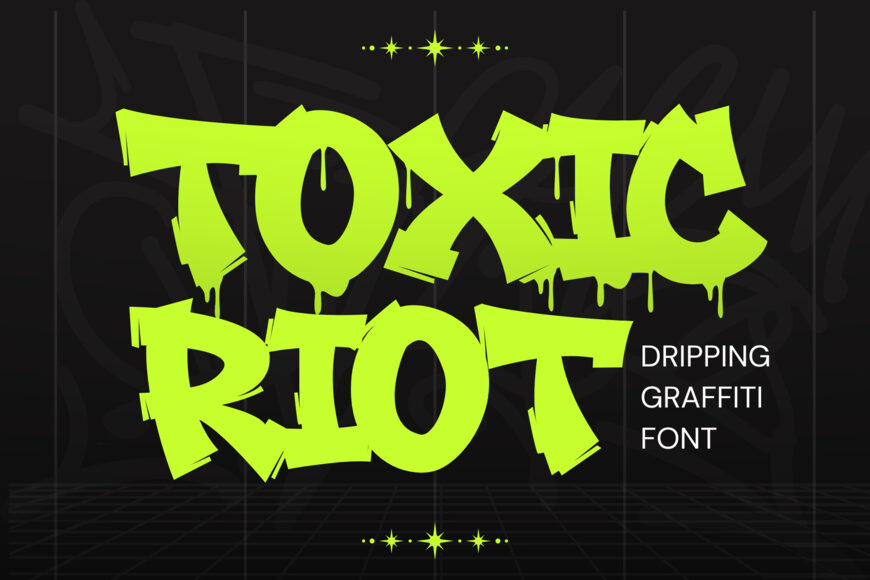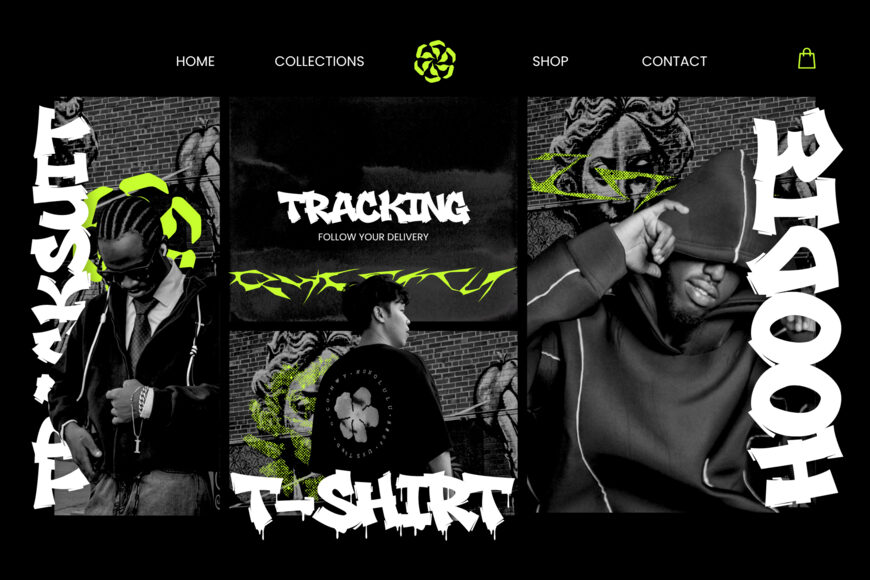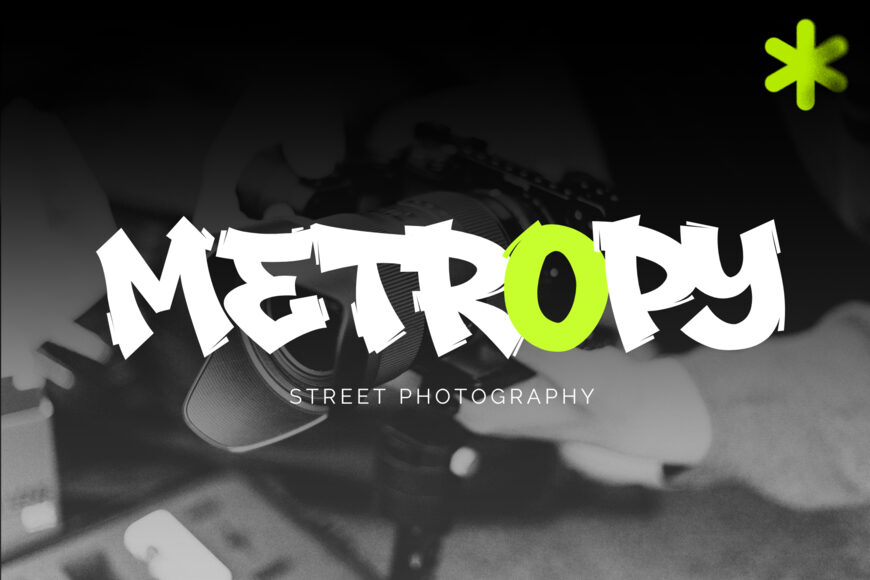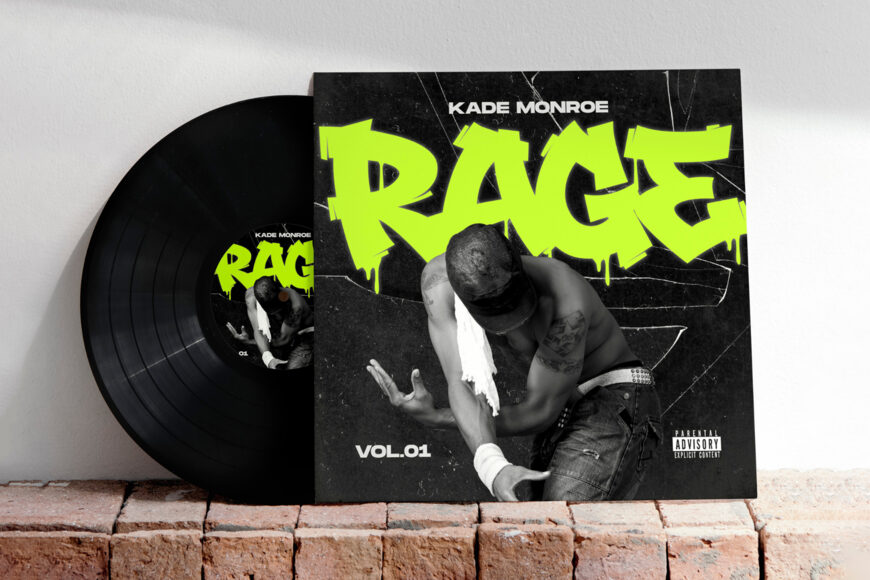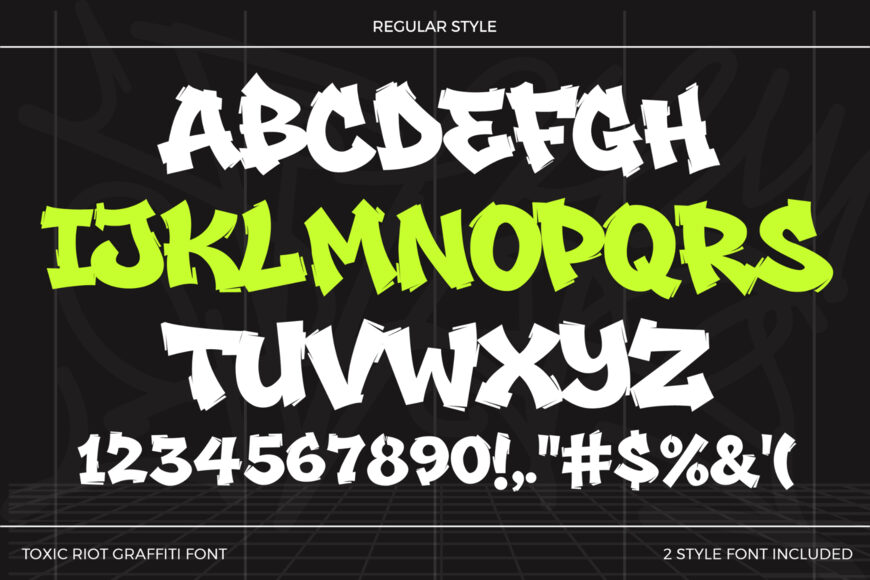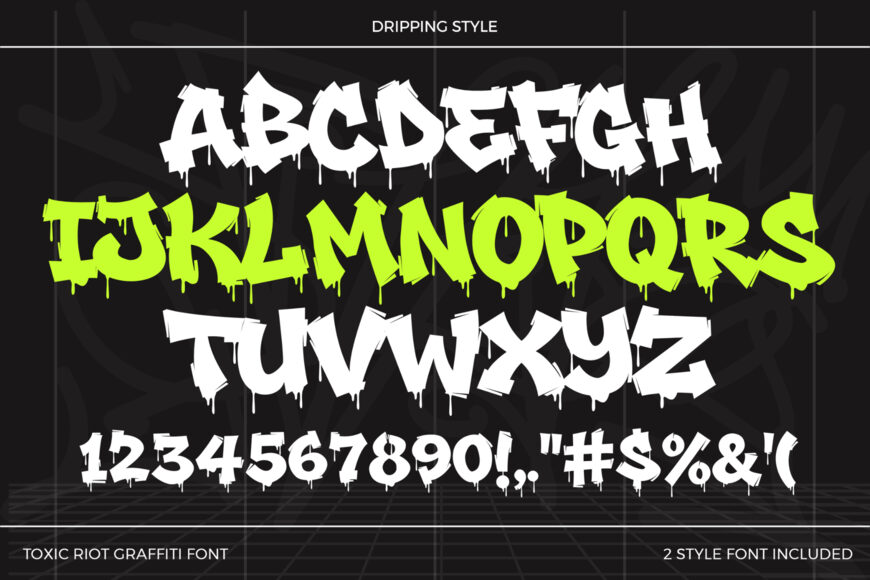
Toxic Riot is a bold and expressive graffiti font designed to capture the raw energy of street art with dramatic dripping details and fearless urban character. Inspired by authentic graffiti walls, hip-hop culture, and underground lettering, this dripping graffiti font transforms ordinary typography into bold visual statements.
Whether you’re designing streetwear collections, music artwork, gaming graphics, posters, or social media campaigns, Toxic Riot graffiti font delivers an aggressive style that instantly commands attention.